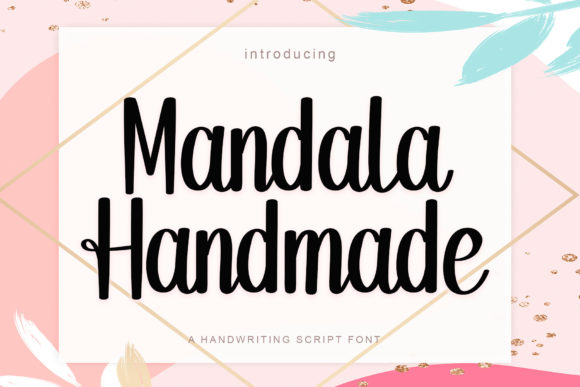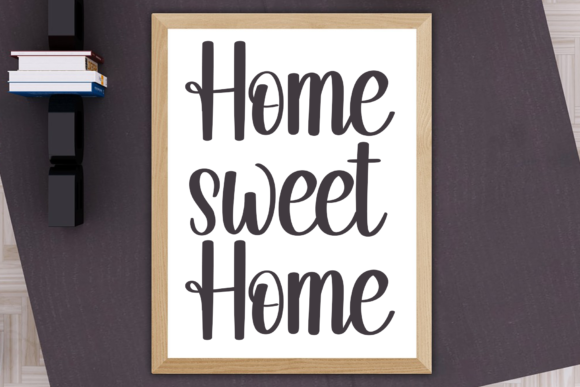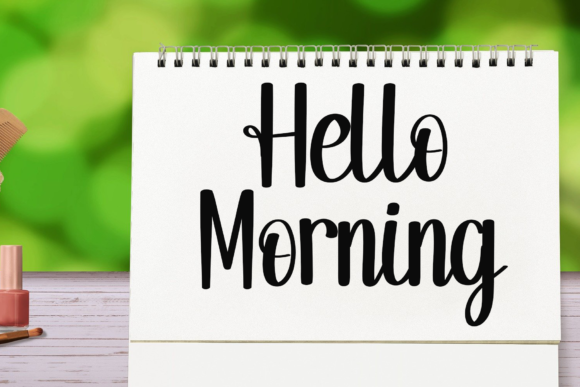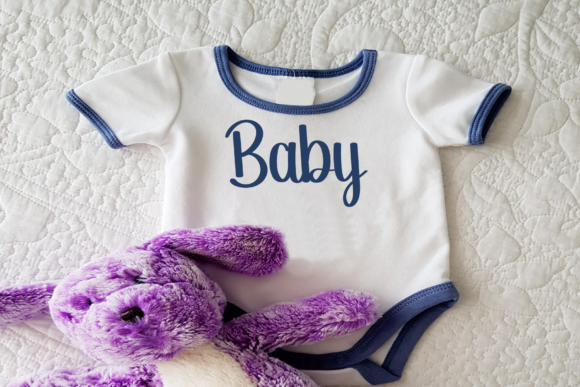
Mandala Handmade Font
About Mandala Handmade Font
Mandala Handmade is a sweet and cursive handwritten font. This gentle font will look gorgeous on a variety of design ideas. It will add a joyful and romantic touch to each of your projects!